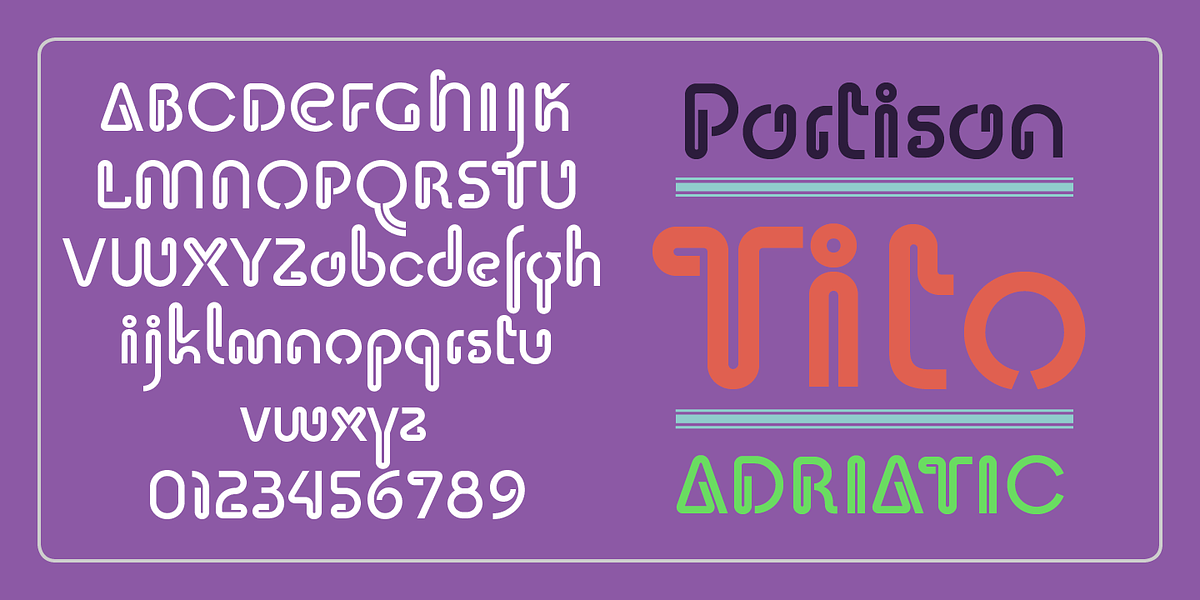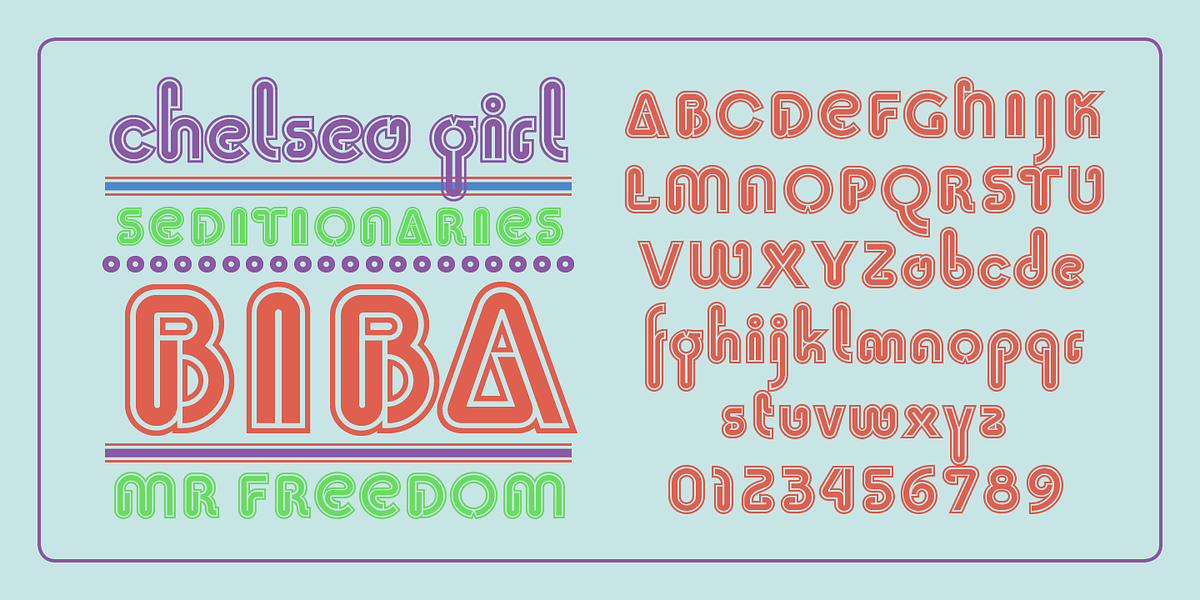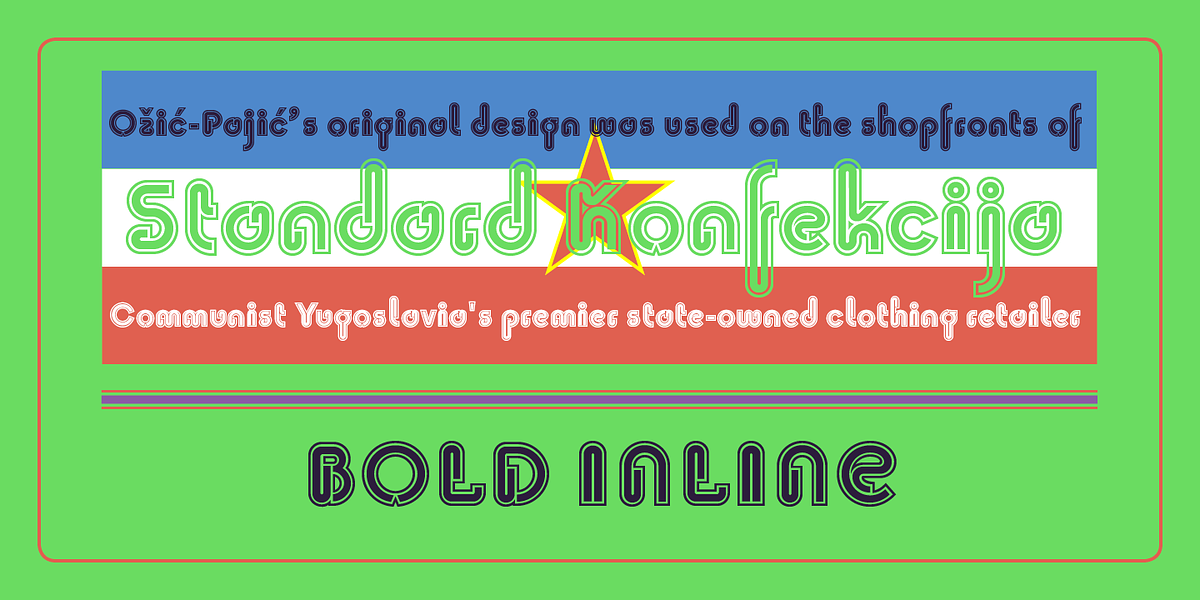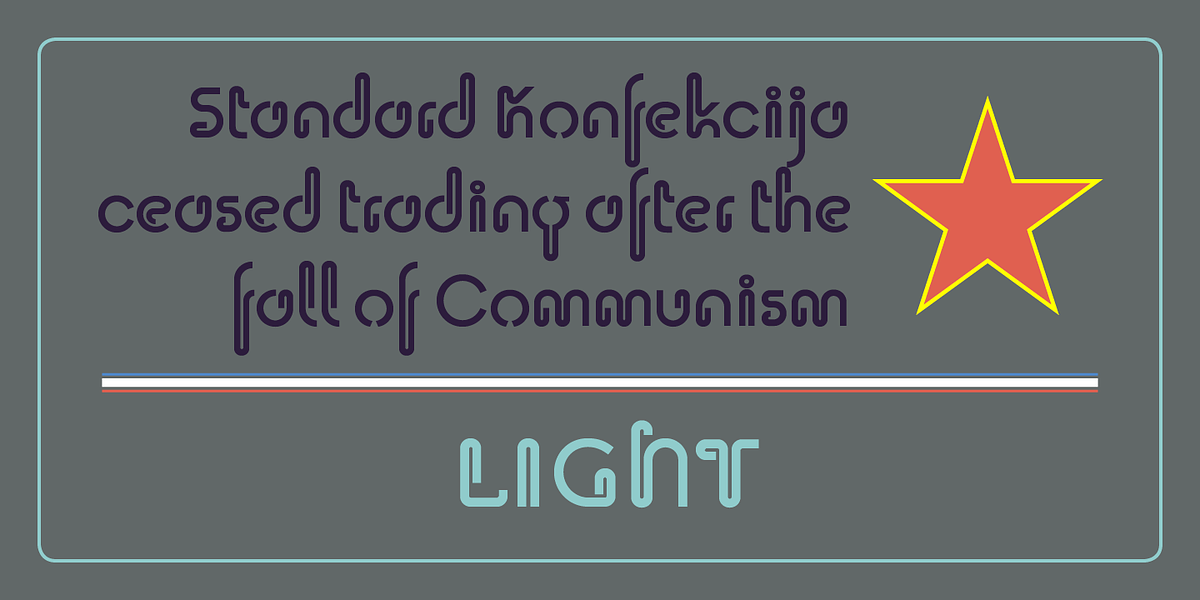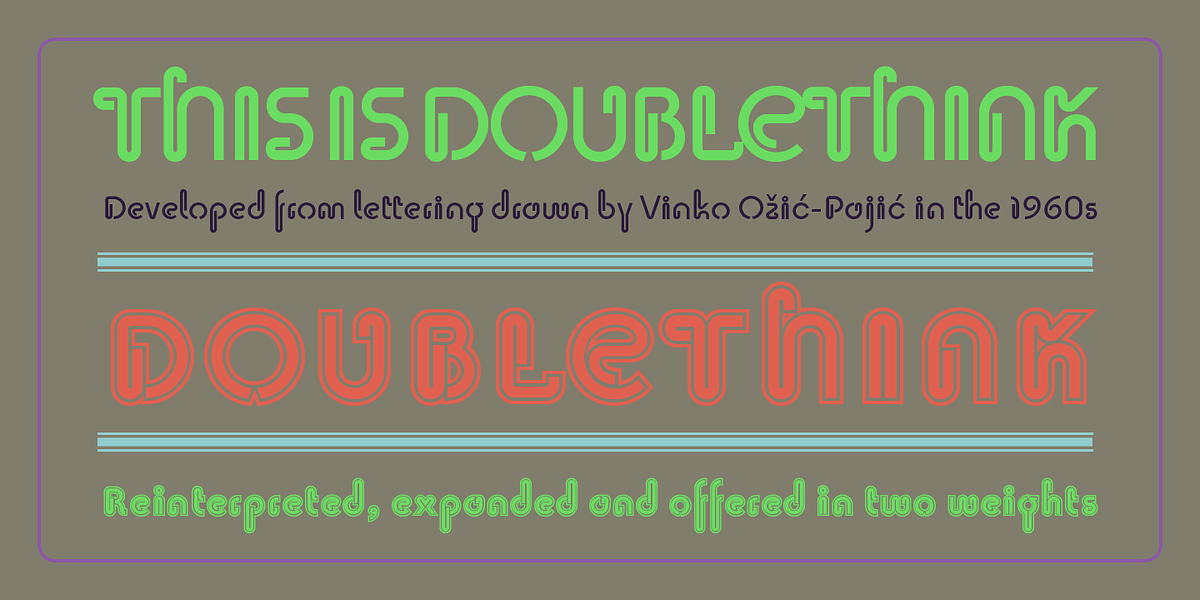
Doublethink
Doublethink is a display typeface inspired by lettering used on Yugoslavian shop fronts in the 1960s. The font features a bold, geometric design with an inline style. It's available in two weights: Medium and Bold Inline. The name 'Doublethink' references George Orwell's novel Nineteen Eighty-Four.